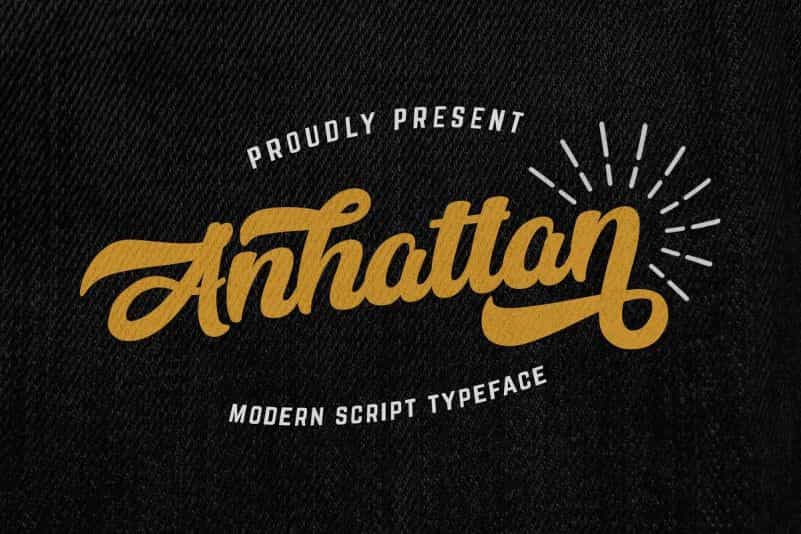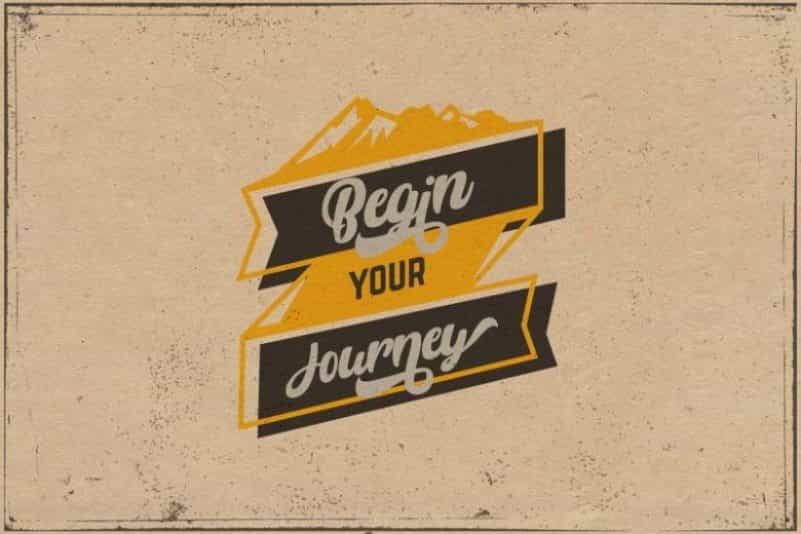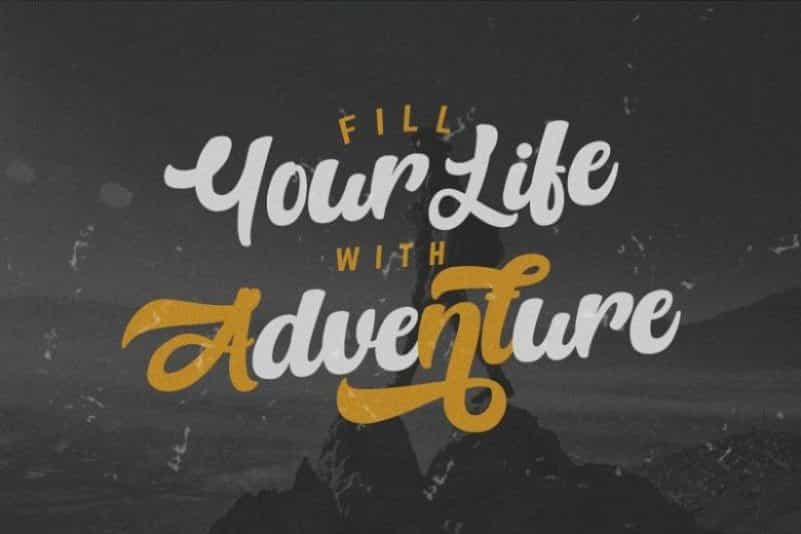
Anhattan Font is a redesign of the old label vintage lettering. The Anhattan matches is used in some designs like the logotype, brand, packaging, branding, quotes, business cards and more. The characteristics of the font are upper-case, lower-case, numeral, punctuation and symbol; ligatures and alternatives; multilingual support.